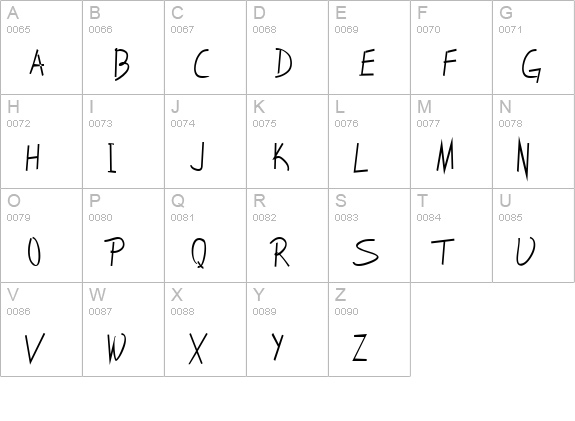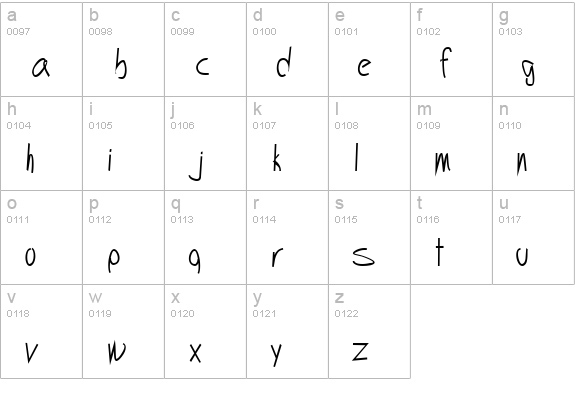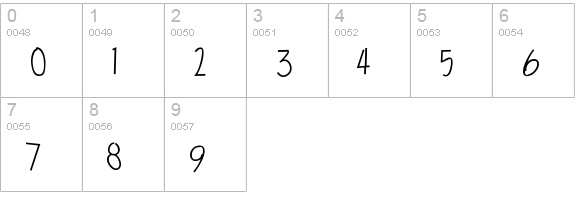
Handwrite-Pen font is a stunning and versatile typeface that captures the essence of handwritten script with its elegant and flowing strokes. This font exudes a sense of creativity and individuality, making it perfect for various design projects such as invitations, logos, branding, and more. With its smooth and authentic appearance, Handwrite-Pen font adds a personal touch to any piece of artwork or design. Whether you're looking to create a romantic wedding invitation or a whimsical logo, this font will bring your vision to life with its unique and charming style. What sets Handwrite-Pen font apart is not only its exceptional design but also the fact that it is completely free to download. At FontsMarket.com, you can freely access and enjoy this incredible font without any restrictions. This means that you can use it for personal or commercial projects without worrying about licensing fees or limitations. Downloading Handwrite-Pen font from FontsMarket.com is quick and easy, allowing you to start using it in your designs right away. The font comes in a variety of formats, ensuring compatibility with different software and design applications. Whether you're a professional designer or a creative enthusiast, this font is a valuable addition to your font collection. Experience the beauty of Handwrite-Pen font and unleash your creativity like never before. Its free availability at FontsMarket.com allows you to explore and experiment with this remarkable typeface without any financial constraints. Download Handwrite-Pen font today and let your designs speak volumes with its captivating and artistic appeal.